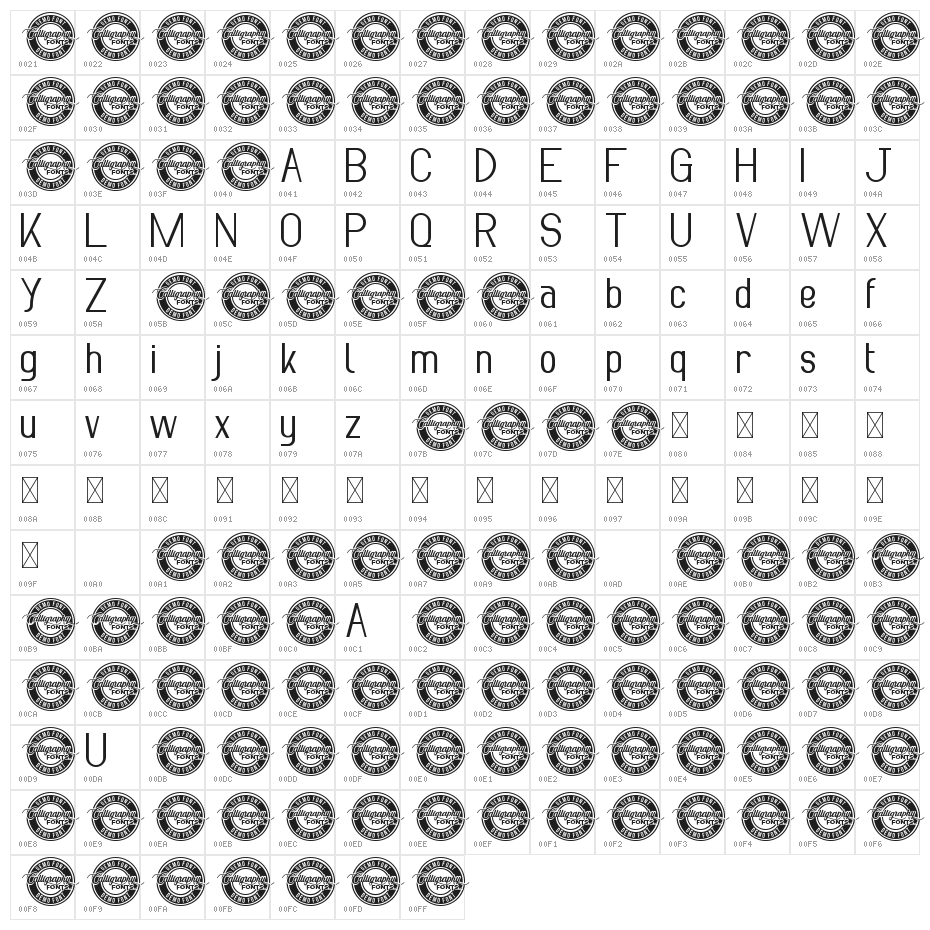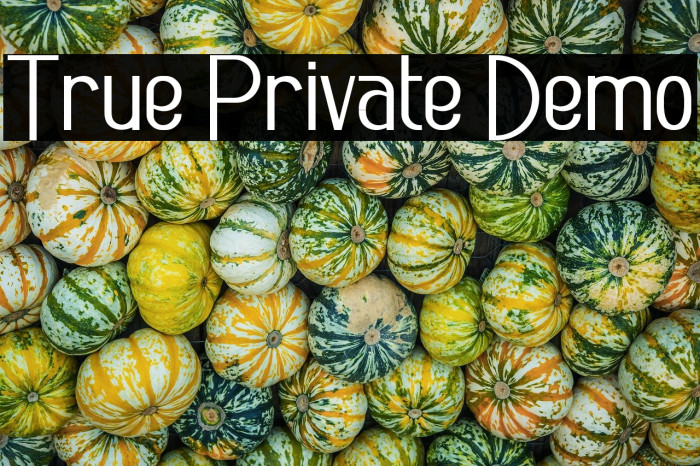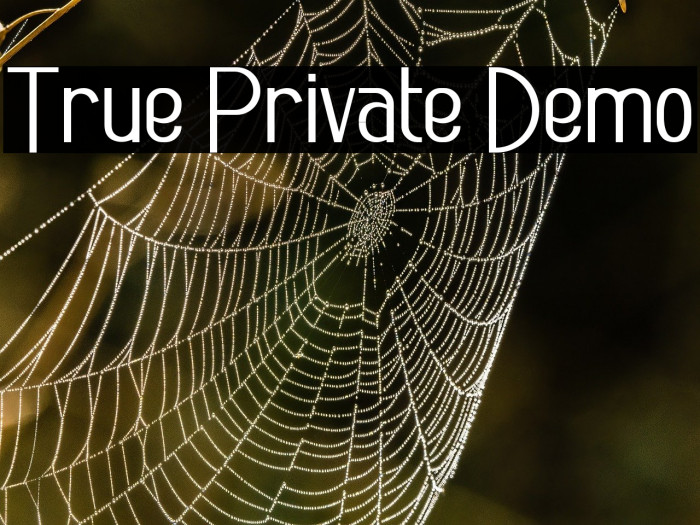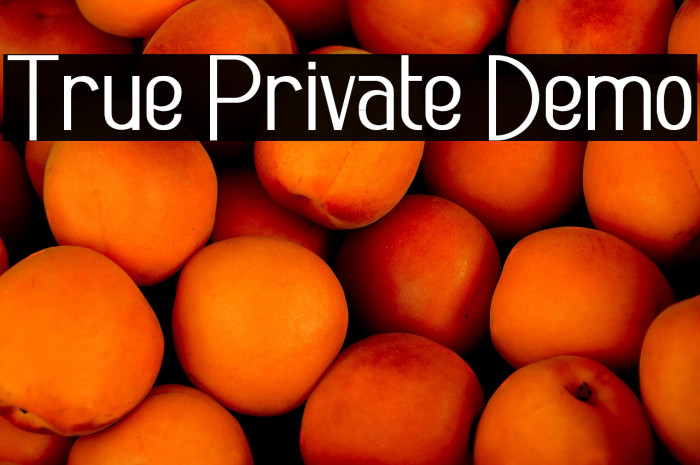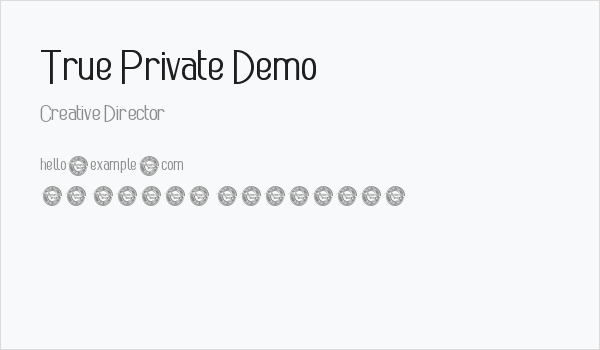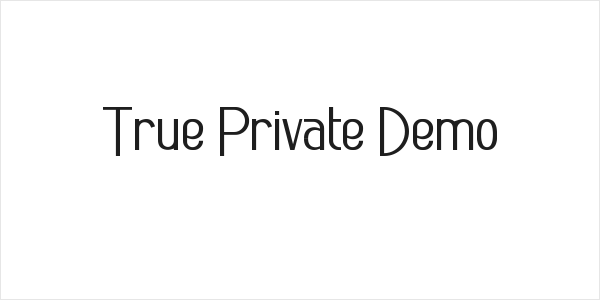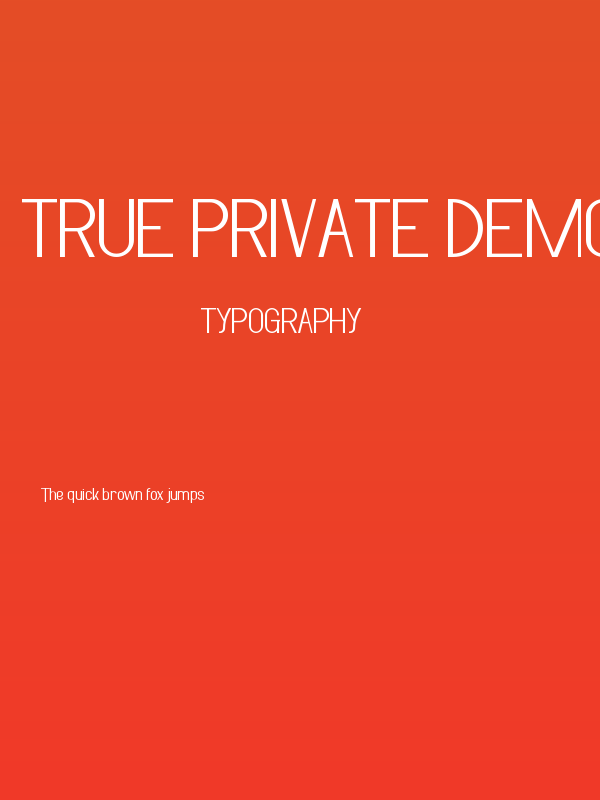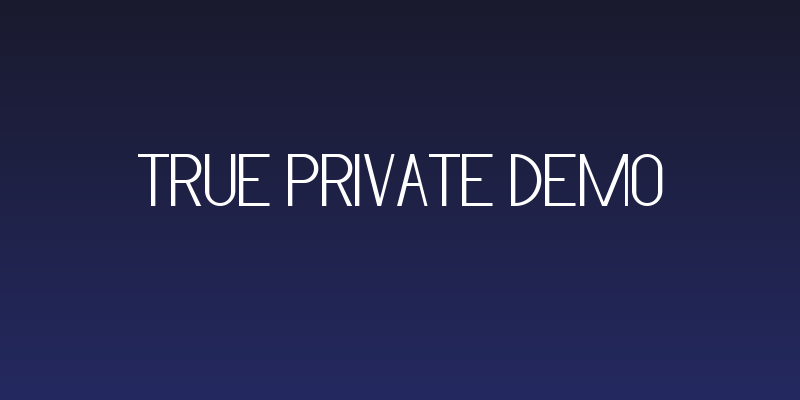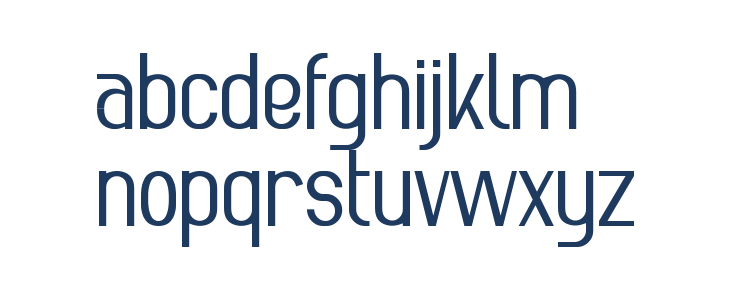
True Private Demo Font
True Private Demo Description
This font features a clean, modern sans-serif style with a geometric structure. The uppercase letters are tall and narrow, giving a sleek and professional appearance. The lowercase letters maintain a consistent height, contributing to a uniform look. The font has a balanced weight, neither too light nor too bold, making it versatile for various design needs. The spacing between characters is normal, ensuring readability while maintaining a compact form. The overall design is minimalistic, suitable for contemporary projects that require a straightforward and elegant typeface.
| Proposed Projects | Ideal for branding, corporate design, web interfaces, and editorial layouts. |